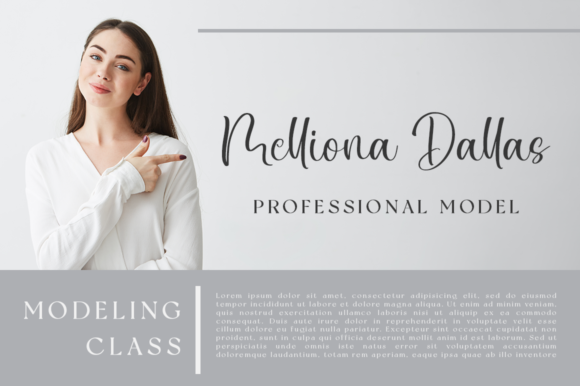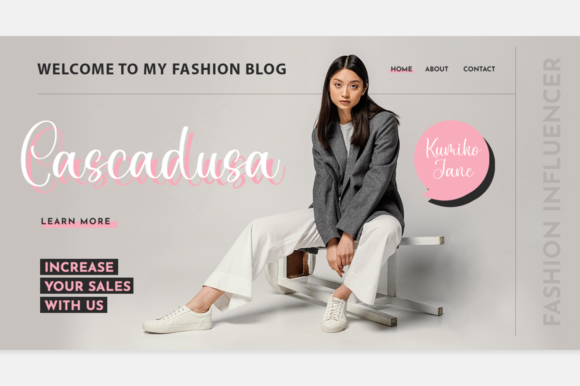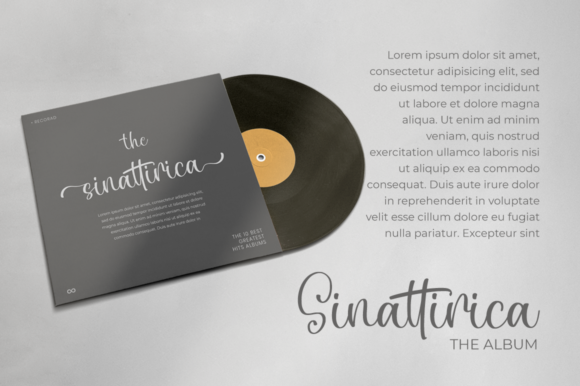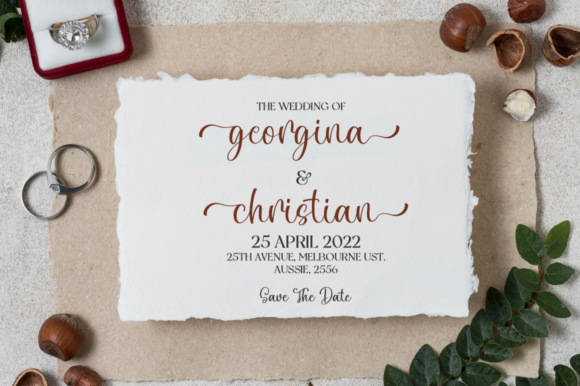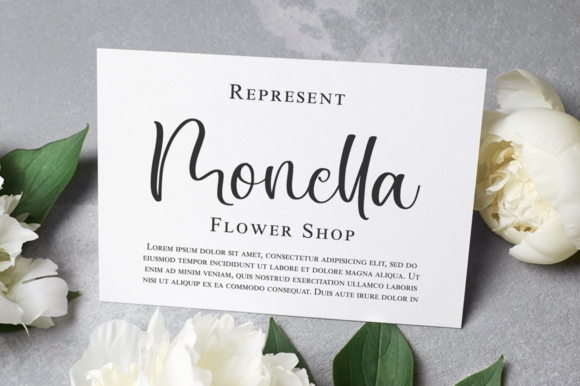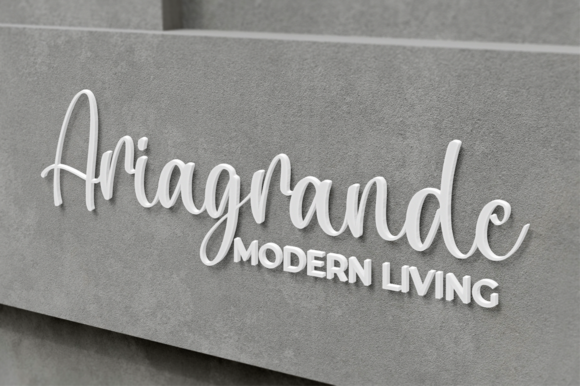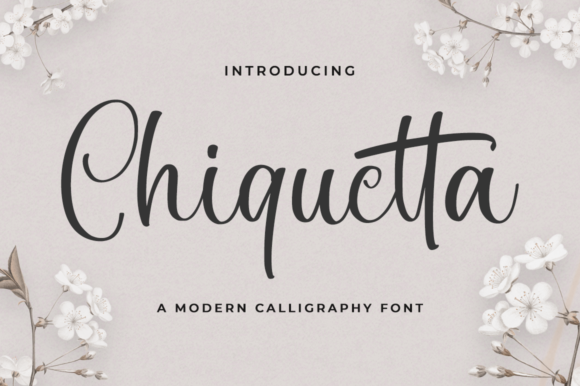
Introducing Chiquetta Font: Elevate Your Designs with Elegance and Sophistication
In the world of typography, fonts play a pivotal role in transforming a design from ordinary to extraordinary. Among the myriad of fonts available, Chiquetta stands out as a beacon of elegance and sophistication. This beautiful, delicate handwritten font is not just a typeface; it’s an experience. With its unique feel and stunning impact, Chiquetta is poised to add a luxury spark to any design project you wish to create.
The Unique Charm of Chiquetta
Chiquetta’s charm lies in its delicate and elegant strokes, which breathe life into any design. Whether you’re working on a branding project, a wedding invitation, a packaging design, or a digital platform, Chiquetta brings a touch of luxury and refinement. Its handwritten nature gives it a personal and intimate feel, making it perfect for designs that require a human touch.
PUA Encoding: Unlocking Creative Potential
One of the standout features of Chiquetta is its PUA (Private Use Area) encoding. This means that the font comes with a range of glyphs and ligatures that are easily accessible. PUA encoding allows designers to tap into a vast library of special characters, swashes, and alternates, which can be used to add a unique flair to their designs. With Chiquetta, you can effortlessly access these amazing glyphs and ligatures, making your design process smoother and more creative.
Applications of Chiquetta Font
The versatility of Chiquetta makes it suitable for a wide array of design applications. Here are a few ways you can leverage the elegance of Chiquetta:
- Branding and Logotypes: Use Chiquetta to create a memorable brand identity that exudes luxury and sophistication.
- Wedding and Event Stationery: Add a touch of elegance to your wedding invitations, save-the-dates, and other event materials.
- Packaging Design: Elevate your product packaging with a font that communicates luxury and high quality.
- Digital Platforms: Use Chiquetta in your website designs, social media graphics, and digital advertisements to stand out in the digital landscape.
Why Choose Chiquetta?
In a market saturated with fonts, Chiquetta offers several unique advantages:
- Elegance: Its delicate and beautiful strokes bring an unmatched level of elegance to any design.
- Versatility: Suitable for a wide range of design projects, from print to digital.
- Accessibility: PUA encoding makes it easy to access a wide range of glyphs and ligatures.
- Uniqueness: Stands out from more commonly used fonts, giving your designs a distinctive look.
Tips for Using Chiquetta Effectively
To get the most out of Chiquetta, consider the following tips:
- Pair it Wisely: Combine Chiquetta with complementary fonts to create visual interest.
- Experiment with Sizes: Play with different font sizes to emphasize certain parts of your design.
- Utilize Ligatures: Take advantage of the ligatures and glyphs available to add a unique touch.
- Maintain Consistency: Use Chiquetta consistently across your design project to build a cohesive look.
Chiquetta font is more than just a typeface; it’s a design statement. With its delicate strokes, unique feel, and the creative freedom offered by PUA encoding, Chiquetta has the potential to transform your design projects. Whether you’re a professional designer or a crafter, Chiquetta provides the tools to create stunning, luxury designs that leave a lasting impression. Embrace the elegance of Chiquetta and watch your designs soar to new heights of sophistication and style.